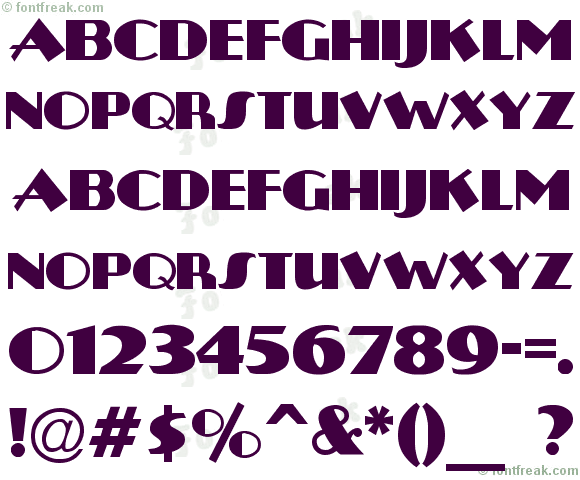
Plug-NickelBlack
About Plug-Nickelblack
Introducing the Plug-Nickelblack font by Nick Curtis, a striking display typeface designed in 1997. This freeware font combines boldness and elegance, making it a fantastic choice for a variety of design projects. Characterized by its unique sans-serif style, Plug-Nickelblack boasts a strong geometric presence with a substantial stroke weight that conveys confidence and modernity. The overall design offers a slight contrast between thick and thin lines, enhancing its visual appeal while maintaining readability.
The font features generous spacing between characters, which allows for easy legibility and a clean appearance. Its simplistic yet impactful design is complemented by subtle decorative elements that add character without overwhelming the viewer. These attributes make Plug-Nickelblack an excellent choice for various applications, including eye-catching movie posters, trendy restaurant menus, stylish branding materials, and dynamic social media graphics. Small business owners and content creators will find this font particularly appealing, as it can elevate their visual identity and attract attention in a crowded marketplace.
Graphic designers looking for a versatile typeface will appreciate the Plug-Nickelblack font free download, which allows for easy access and experimentation. This font stands out not only for its aesthetic qualities but also for its ability to adapt to different contexts while maintaining a unique visual identity. Whether used for a bold headline or as part of a logo, Plug-Nickelblack offers a distinct personality that can enhance any project. With its blend of modern design and practicality, this font is a valuable addition to any designer's toolkit, ensuring that your creative vision remains both impactful and memorable.